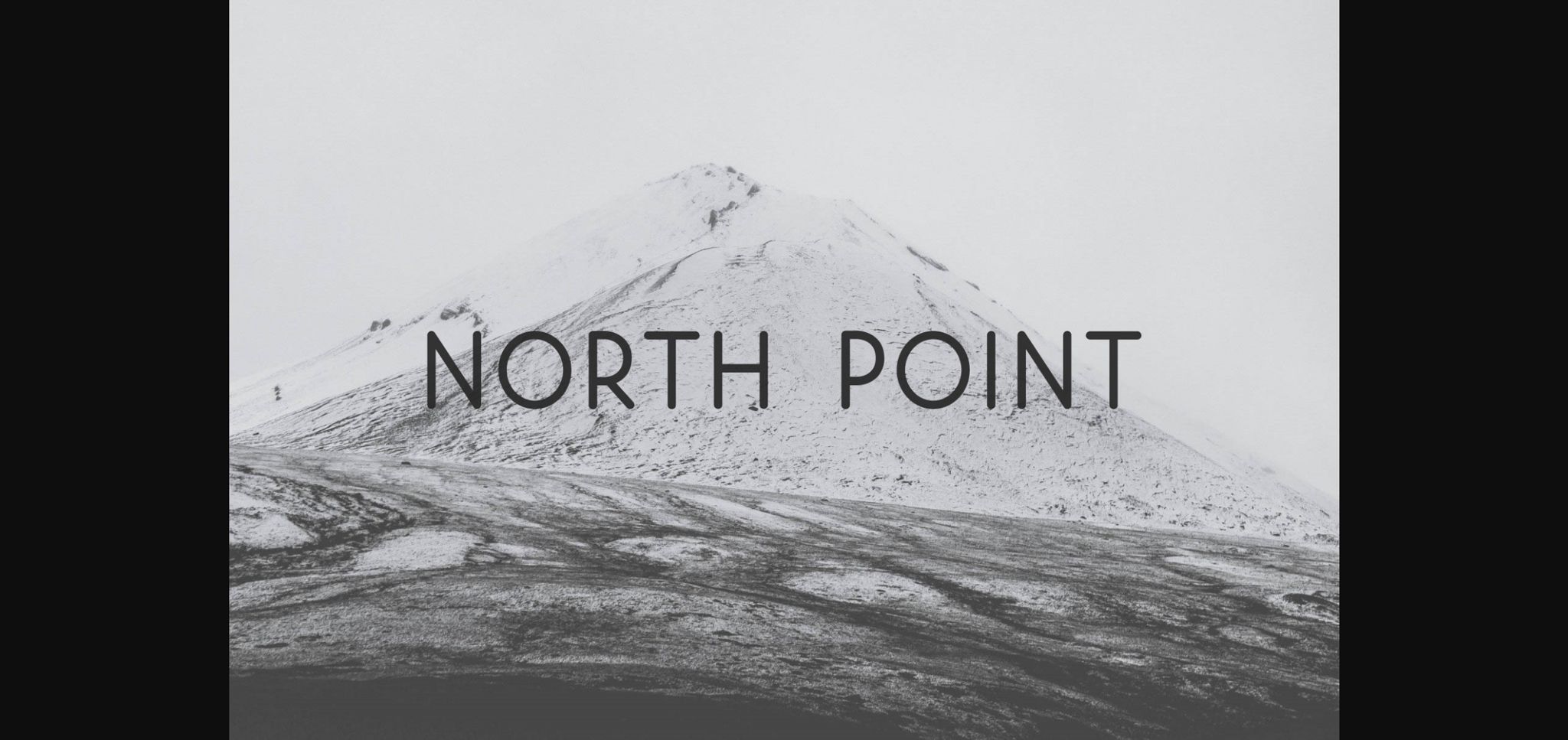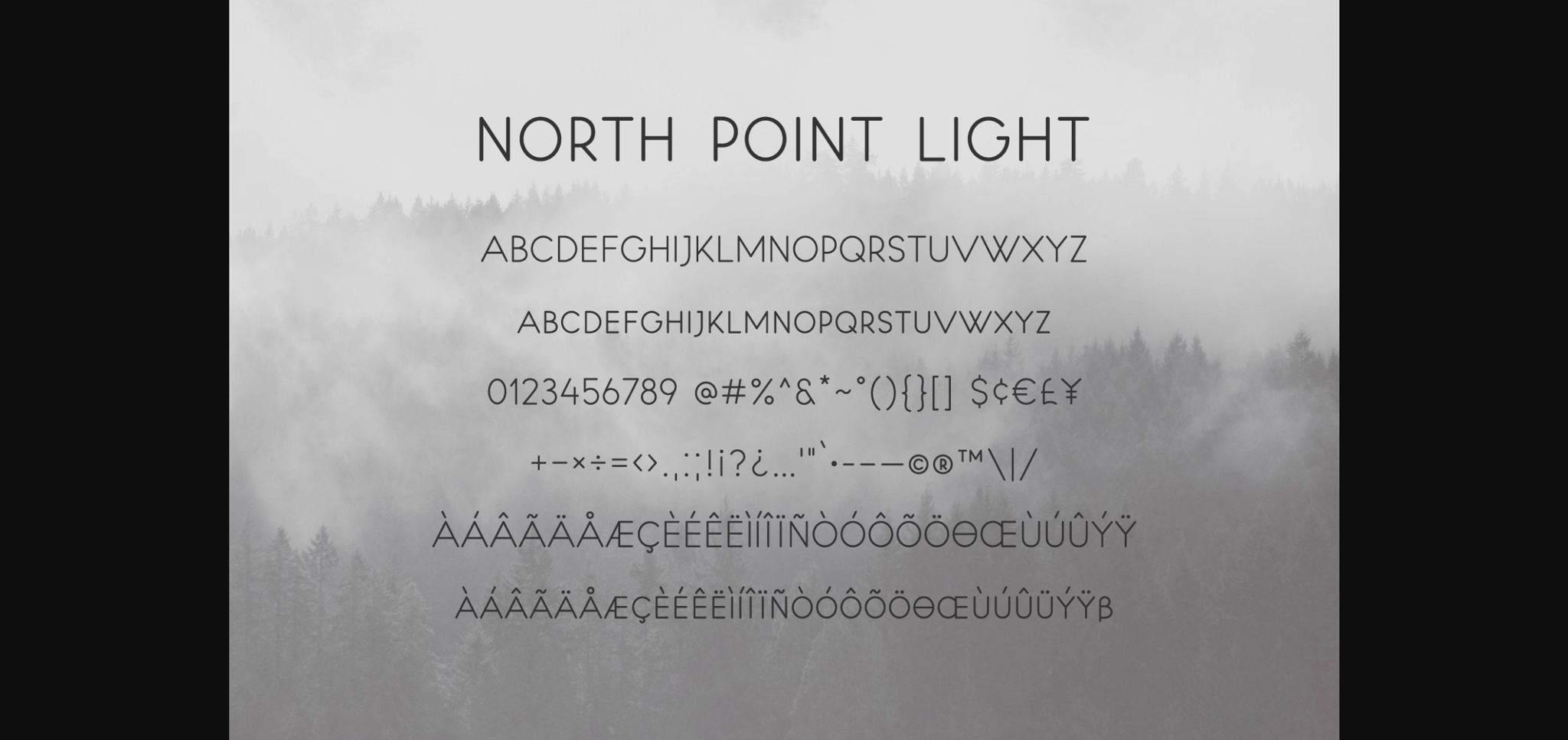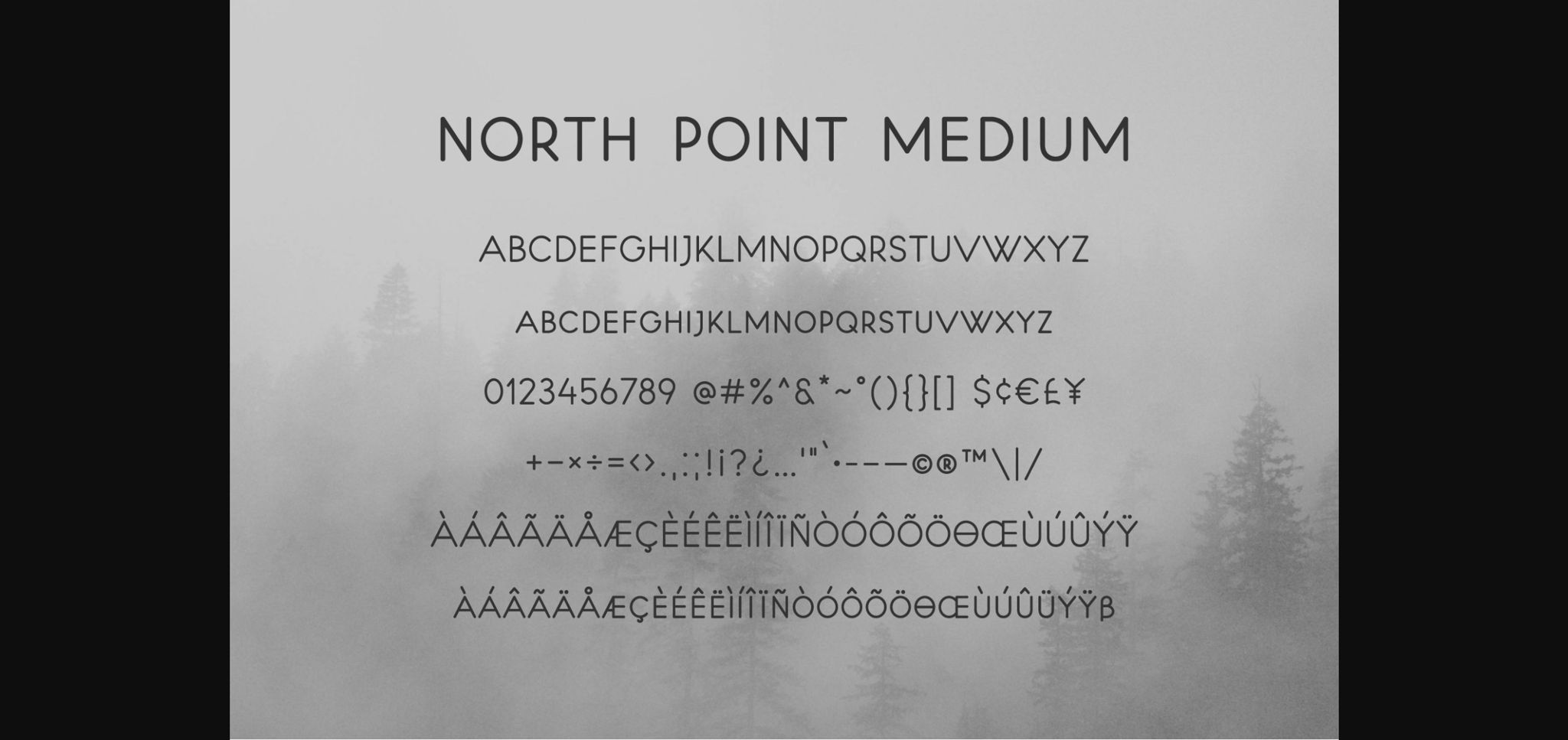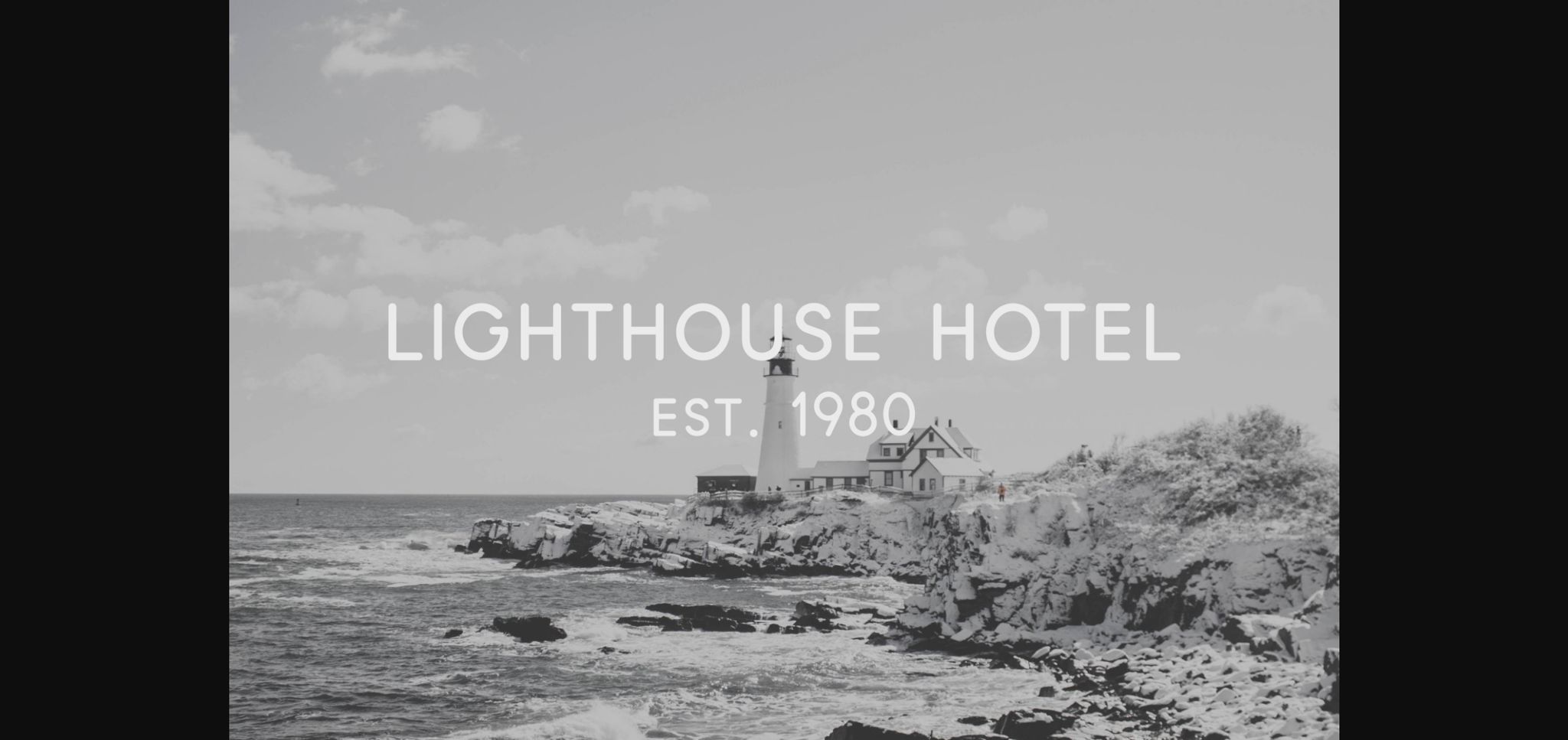
North Point Font
About North Point Font
North Point is a minimal and neat sans serif font. It can easily be matched to an incredibly large set of projects, so add it to your creative ideas and notice how it makes them stand out!